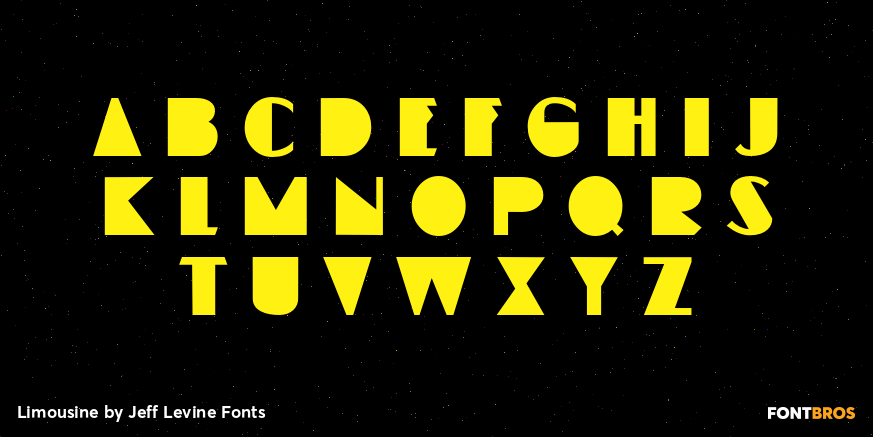
Limousine
Limousine JNL takes the basic outline shape of Crestview Six JNL (an actual design from the Art Deco era) and gives it a stylized treatment as a solid black letter display face.